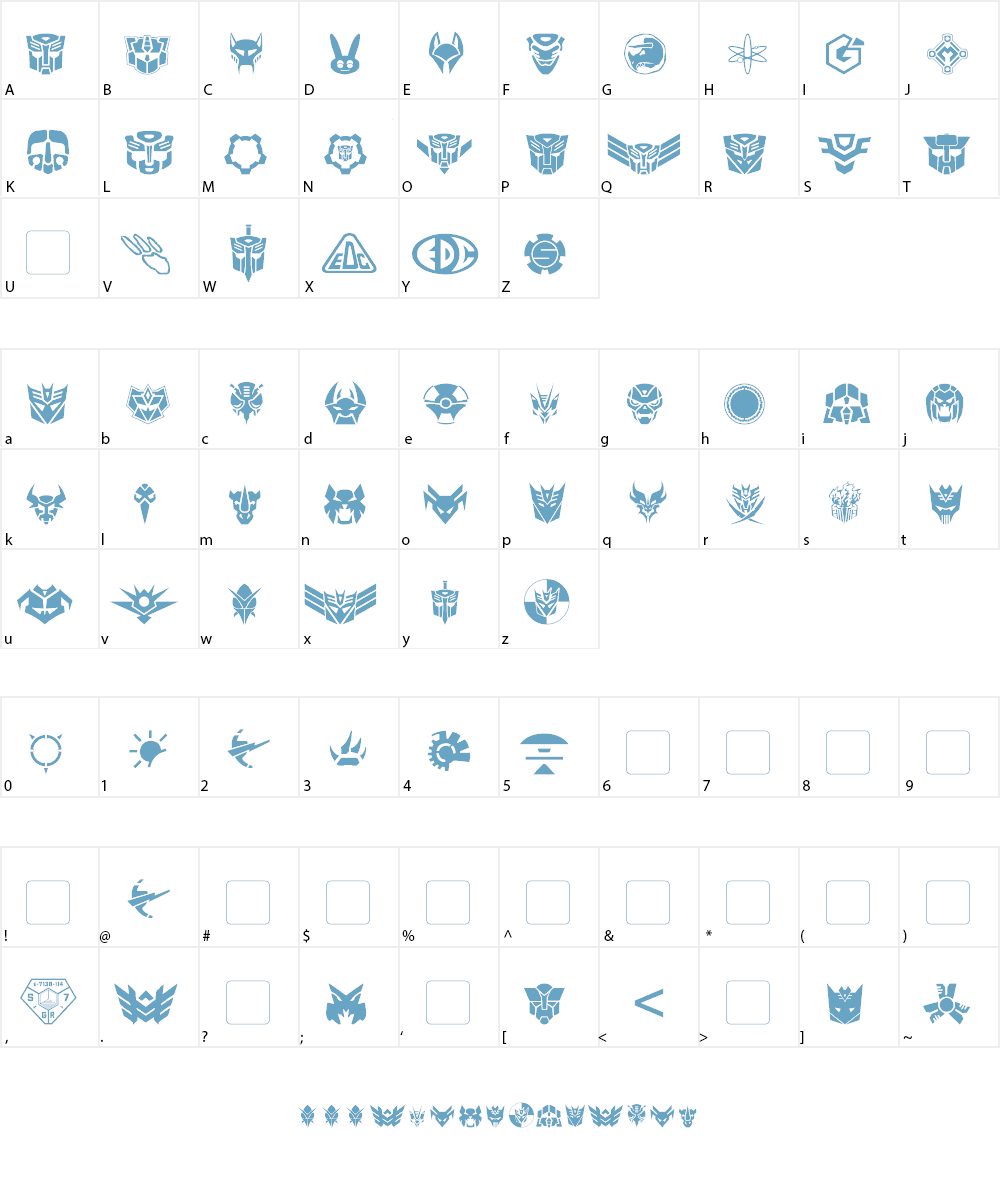
Transdings is “dings collection” of the various “faction-symbols” that have appeared throughout Hasbro’s massive Transformers franchise. Includes symbols ranging from the original Autobot and Decepticon symbols from the classic series, through Micheal Bay’s movie-verse. All symbols used with permission.